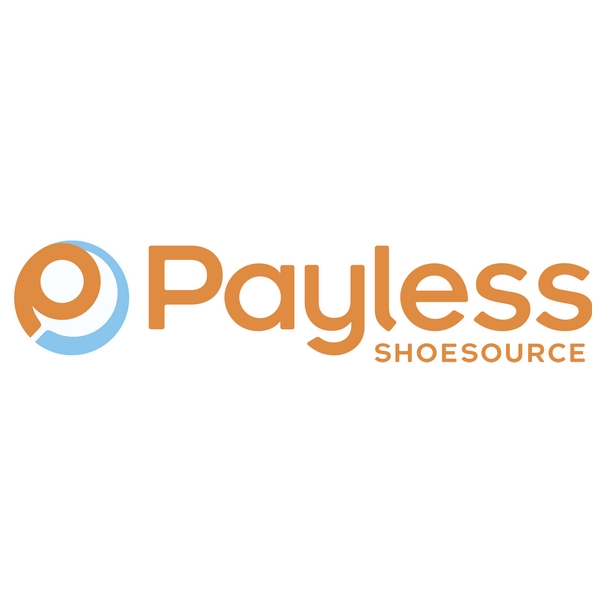
Payless ShoeSource Font
Fonts in UsePayless ShoeSource was a discount footwear retailer headquartered in Topeka, Kansas, United States. It was founded in 1956 and operated over 3,500 stores in 40 countries before filing for bankruptcy in 2019.
The company's present logo, since 2006, is likely a custom design with letterforms that resembles the font Nexa ExtraBold created by Svetoslav Simov. For its previous logo before 2006, it was probably set in Cooper Black designed by Oswald Bruce Cooper.